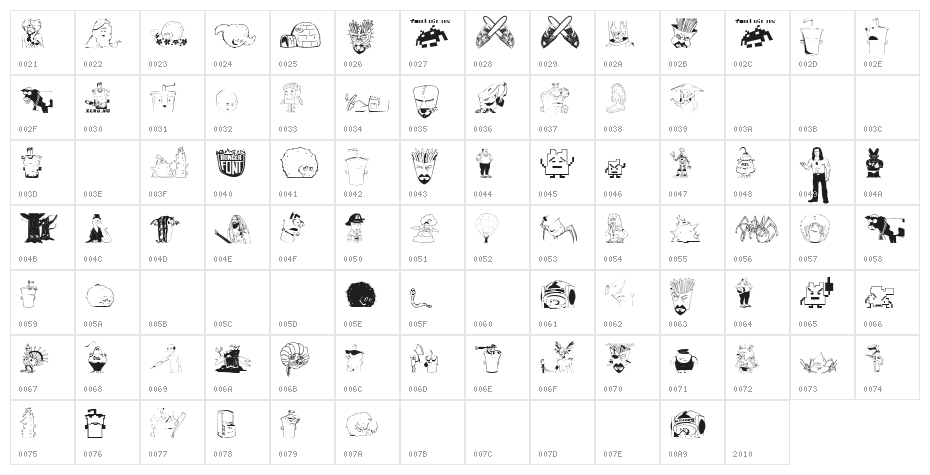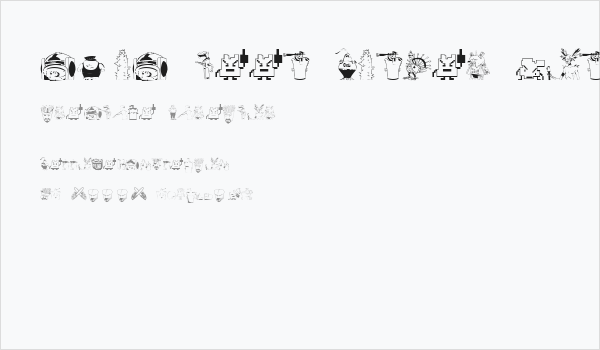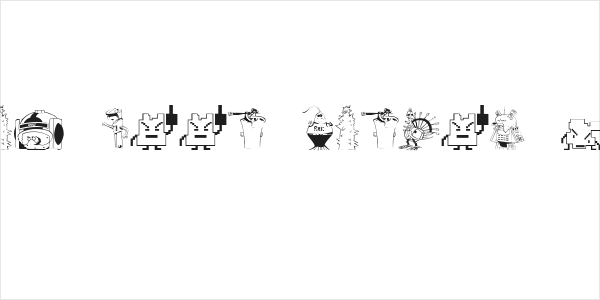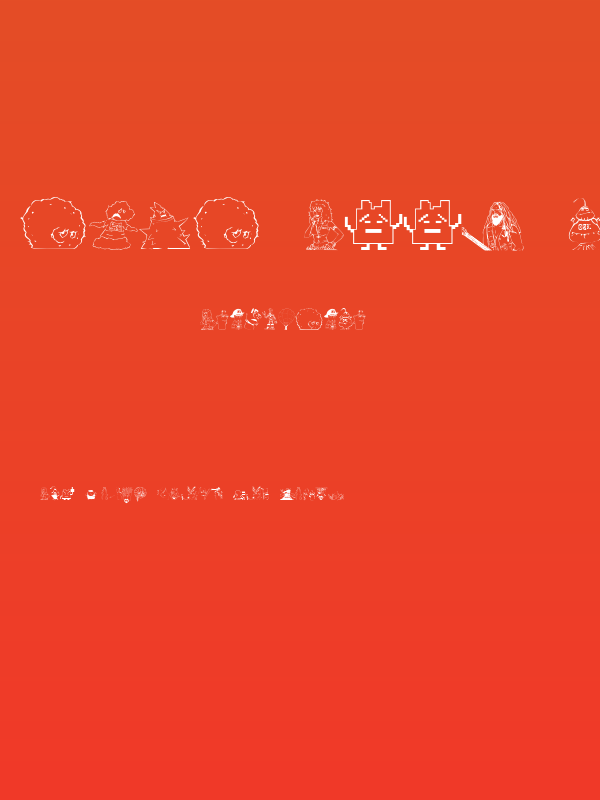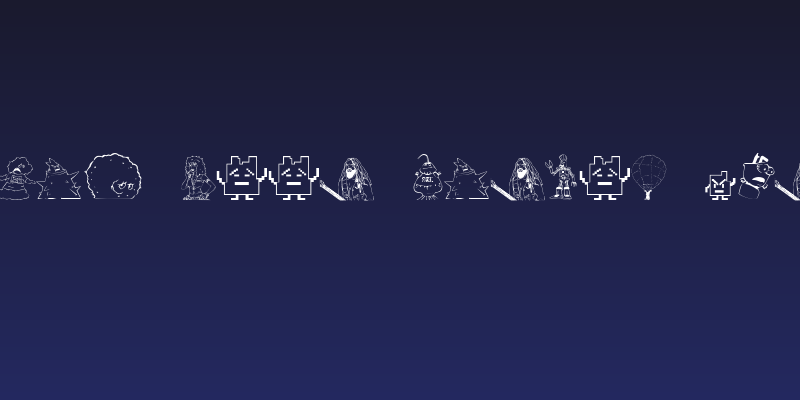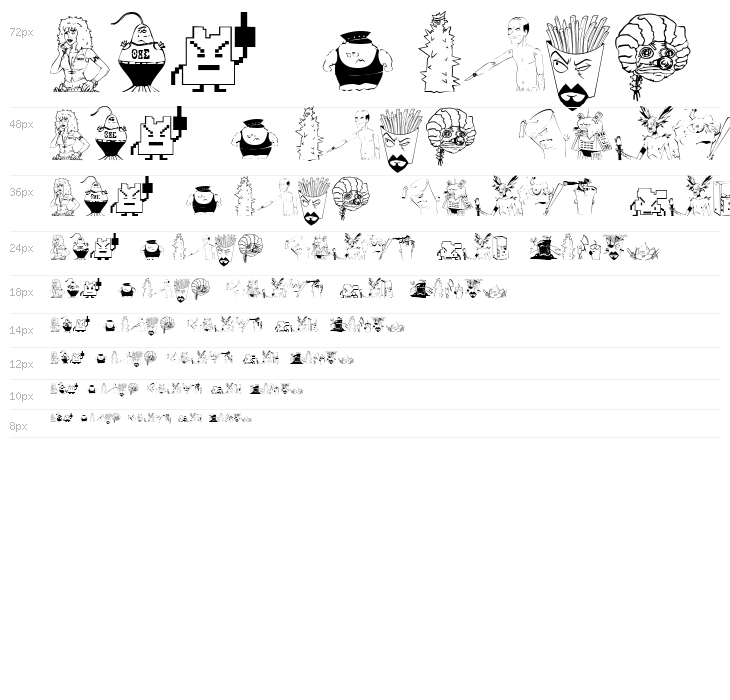
aqua teen hunger font Font
aqua teen hunger font Description
A highly decorative and illustrative font featuring detailed cartoon characters and objects, each glyph represented by a unique drawing rather than traditional letterforms.
| Overall Style | Decorative, Cartoonish, Whimsical |
| Use Case | Logos, Posters, Themed Graphics, Novelty Designs |
| Proposed Projects | Fan art posters, themed party invitations, novelty merchandise, comic book titles, parody artwork. |